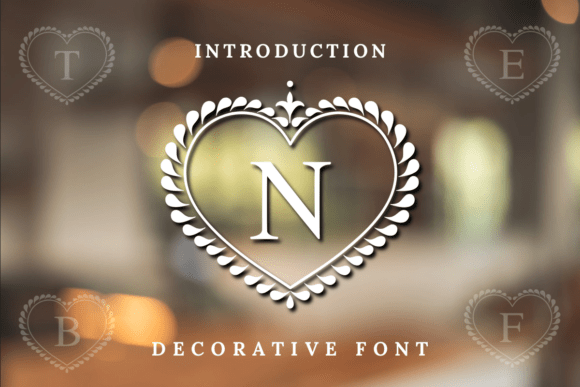
Loveheart Monogram Font: A Decorative Font for Your Creative Projects
Are you looking for a unique and decorative font to add a personal touch to your creative projects? Look no further than the Loveheart Monogram Font. This beautiful font is perfect for taking notes, writing a diary, or making greeting cards. But its uses don’t stop there. You can also use it for other designs, such as banners, content, mugs, cards, shirts, stationery, social media posts, and more!
What is Loveheart Monogram Font?
Loveheart Monogram Font is a decorative font that features intricate and elegant designs. The font is characterized by its loveheart-shaped monograms, which add a touch of romance and whimsy to any project. The font is highly versatile and can be used for a wide range of creative projects, from personal to professional.
Uses of Loveheart Monogram Font
Loveheart Monogram Font is a highly versatile font that can be used for a variety of creative projects. Here are some of the many uses of this beautiful font:
- Note-taking and journaling: Add a personal touch to your notes and journals with the Loveheart Monogram Font. The font’s elegant designs make it perfect for writing diaries, to-do lists, and other personal notes.
- Greeting cards: Create beautiful and unique greeting cards for special occasions such as birthdays, weddings, and anniversaries. The font’s loveheart-shaped monograms add a romantic touch to any card.
- Banners and signs: Use the Loveheart Monogram Font to create eye-catching banners and signs for events, parties, and promotions. The font’s bold and elegant designs are sure to grab attention.
- Content creation: Add a touch of elegance to your blog posts, articles, and social media content with the Loveheart Monogram Font. The font’s unique designs make it perfect for creating visually appealing content.
- Mugs and ceramics: Create personalized mugs, ceramic plates, and other home decor items with the Loveheart Monogram Font. The font’s intricate designs look beautiful on ceramic and other materials.
- Cards and invitations: Create unique and elegant cards and invitations for special occasions such as weddings, baby showers, and graduations. The font’s loveheart-shaped monograms add a touch of romance and whimsy to any card or invitation.
- Shirts and apparel: Use the Loveheart Monogram Font to create personalized shirts, hoodies, and other apparel items. The font’s bold and elegant designs look great on fabric.
- Stationery: Create personalized stationery, including notebooks, journals, and letterheads, with the Loveheart Monogram Font. The font’s elegant designs make it perfect for professional and personal use.
- Social media posts: Add a touch of elegance to your social media posts with the Loveheart Monogram Font. The font’s unique designs make it perfect for creating visually appealing social media content.
Features of Loveheart Monogram Font
Loveheart Monogram Font has several features that make it a popular choice for creative projects. Here are some of the font’s key features:
- Unique designs: The font features intricate and elegant loveheart-shaped monograms that add a touch of romance and whimsy to any project.
- Highly versatile: The font is highly versatile and can be used for a wide range of creative projects, from personal to professional.
- Elegant and bold: The font’s elegant and bold designs make it perfect for creating visually appealing projects.
Tips and Tricks
Here are some tips and tricks for using the Loveheart Monogram Font:
- Experiment with different sizes: Experiment with different font sizes to find the perfect size for your project.
- Combine with other fonts: Combine the Loveheart Monogram Font with other fonts to create a unique and visually appealing project.
- Use online font tools: Use online font tools to customize the font and create unique designs.
- Practice makes perfect: Practice using the Loveheart Monogram Font to get familiar with its features and designs.
Loveheart Monogram Font is a beautiful and decorative font that is perfect for creative projects. Its unique loveheart-shaped monograms add a touch of romance and whimsy to any project. The font is highly versatile and can be used for a wide range of projects, from personal to professional. With its elegant and bold designs, the Loveheart Monogram Font is sure to become a favorite among designers, artists, and crafters.
Whether you’re looking to create personalized gifts, decorations, or content, the Loveheart Monogram Font is a great choice. Its ease of use and versatility make it perfect for beginners and experienced designers alike. So why not give it a try and see what amazing projects you can create with the Loveheart Monogram Font?